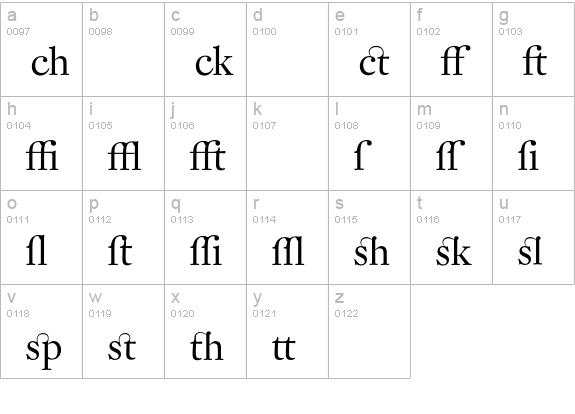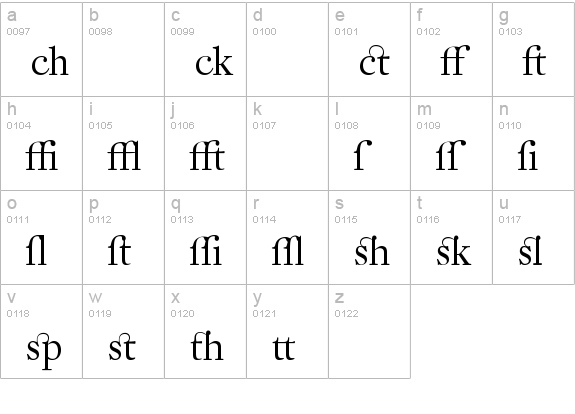
The DTLFleischmannD-Alt font is a stunning display font that exudes elegance and sophistication. With its unique design and intricate details, this font is perfect for adding a touch of class to any project. The sleek lines and graceful curves of DTLFleischmannD-Alt make it a versatile choice for a wide range of design applications. This font is not only visually appealing but also highly legible, making it perfect for both print and digital projects. Whether you're creating a logo, a poster, or a website, DTLFleischmannD-Alt will help your design stand out and make a lasting impression. Best of all, this font is completely free to download at FontsMarket.com. So why wait? Add a touch of sophistication to your next project with DTLFleischmannD-Alt font today!